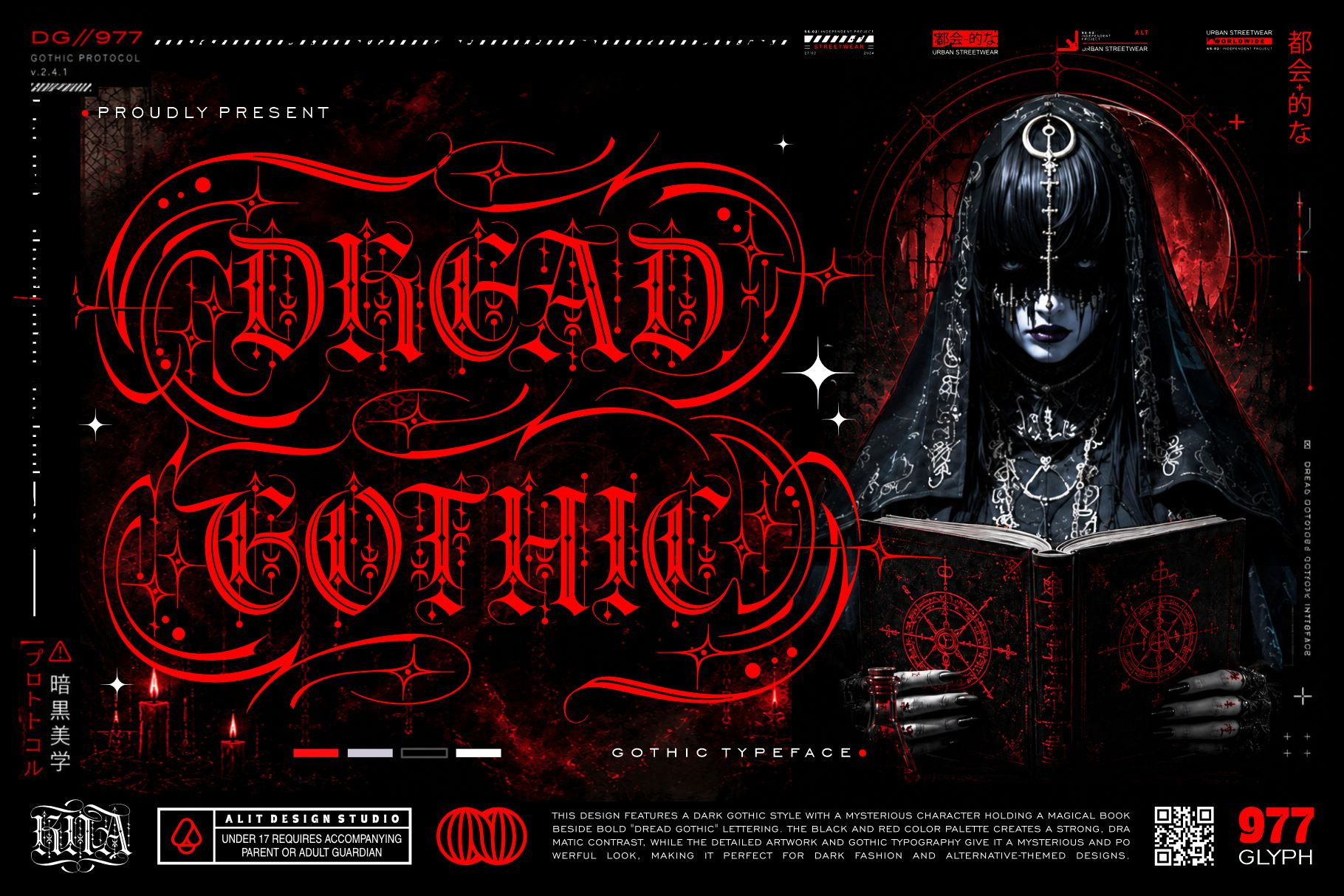
Dread Gothic Typeface
Dread Gothic Typeface – Bold, Intricate, and Ornate Modern Blackletter
Unleash the raw power of dramatic typography with Dread Gothic, a meticulously crafted blackletter typeface that seamlessly bridges medieval structural elegance with a sharp, contemporary edge. Designed for creators who demand a striking visual presence, this font brings a commanding, rebellious, yet highly sophisticated aesthetic to any design project.
With an exceptionally rich library of 977 glyphs, Dread Gothic offers unparalleled versatility and creative freedom. It features a complete set of uppercase and lowercase letters, numerals, symbols, and robust multilingual support. Where it truly shines is its expansive OpenType features: packed with numerous Stylistic Alternates (SS01 to SS09), exquisite custom ligatures, and sweeping decorative swashes, it allows you to easily customize letterforms and create high-impact, custom-lettered layouts that feel completely unique.
Whether you are designing a modern streetwear brand, dark-themed illustrations, high-end packaging, heavy metal band merchandise, or intricate tattoo art, Dread Gothic delivers a bold, unforgettable statement.
Massive Glyph Count: 977 beautifully detailed glyphs.
Character Set: Complete Uppercase & Lowercase alignment, Numbers, Punctuation, and Symbols.
Advanced OpenType Features: Deep selection of Stylistic Sets (SS01 - SS09) for character variation.
Extensive Ligatures & Swashes: Access creative character combinations for fluid, custom display layouts.
Multilingual Support: Ready for global design projects.
Logo design, branding, apparel layout, streetwear design, album covers, poster art, editorial headlines, game design, and any project requiring a balance of dark elegance and savage power.